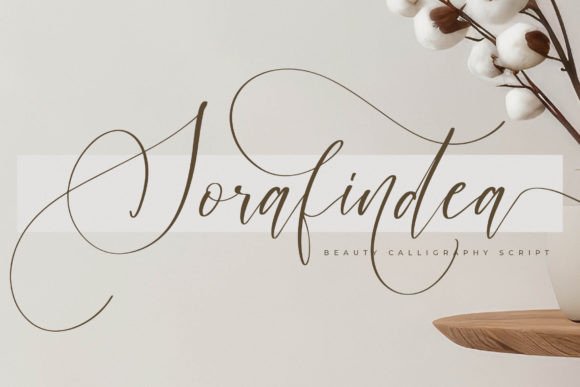
Sorafindea Font: Elevate Your Designs with Luxury Script Elegance
In the realm of typography, few fonts manage to convey the essence of luxury and elegance as effectively as Sorafindea. This beautiful calligraphy script, crafted by Letterena, has emerged as a sought-after choice for designers aiming to infuse their projects with a touch of sophistication. Sorafindea Font is not just a typeface; it’s an expression of refinement and style, making it perfect for a wide array of applications, from logos and branding projects to packaging, posters, and beyond.
Key Features of Sorafindea Font
- Luxury Script Style: Sorafindea boasts a luxurious script style that adds an element of grace and elegance to any design.
- Versatility: Its versatility makes it suitable for various projects, including logos, branding, homeware designs, product packaging, and more.
- High Readability: Despite its elegant and cursive nature, Sorafindea maintains high readability, making it effective for both headlines and body text.
- Unique Letterforms: Each letterform in Sorafindea is carefully crafted, offering a unique and distinctive look that sets it apart from more common typefaces.
Ideas for Using Sorafindea Font
Sorafindea’s luxury script style lends itself to a multitude of creative applications. Here are some ideas to get you started:
- Logos and Branding: Create a lasting impression with a logo that exudes elegance and luxury. Sorafindea is perfect for branding projects that require a sophisticated touch.
- Product Packaging: Elevate your product packaging with a font that communicates luxury and high quality.
- Invitations and Greeting Cards: Add a personal touch to your invitations, greeting cards, and thank you notes with Sorafindea’s beautiful script.
- Posters and Quotes: Make your posters and quote designs stand out with a font that is both stylish and legible.
- Digital and Print Media: Whether it’s for a website, social media graphics, or print materials, Sorafindea can enhance the visual appeal of your content.
Tips for Effective Use of Sorafindea Font
To maximize the impact of Sorafindea, consider the following tips:
- Pair with Simpler Fonts: When using Sorafindea for headings, pair it with a simpler, sans-serif font for body text to create visual contrast.
- Adjust Letter Spacing: For optimal readability, especially in longer texts, adjust the letter spacing to ensure it complements the natural flow of the script.
- Limit Color Palette: To maintain a cohesive look, stick to a limited color palette that aligns with your brand or design theme.
- Experiment with Sizes: Play with different sizes to emphasize certain words or phrases, adding depth and interest to your design.
How Sorafindea Stands Out
In a sea of script fonts, Sorafindea distinguishes itself through its unique blend of elegance and legibility. Unlike some script fonts that can be overly ornate or difficult to read, Sorafindea strikes a perfect balance, making it suitable for both display purposes and longer texts.
Compared to more traditional serif or sans-serif fonts, Sorafindea adds a personal and luxurious feel to designs, making it an excellent choice for projects where making an impression is key.
Sorafindea – Beauty Calligraphy Script by Letterena is more than just a font; it’s a design element that can transform your projects with its luxurious and elegant script. Whether you’re working on a branding project, product packaging, or a personal design endeavor, Sorafindea offers the versatility and style to make your work stand out. By incorporating Sorafindea into your design toolkit, you’re equipping yourself with the means to create visually stunning and memorable pieces that resonate with luxury and sophistication.